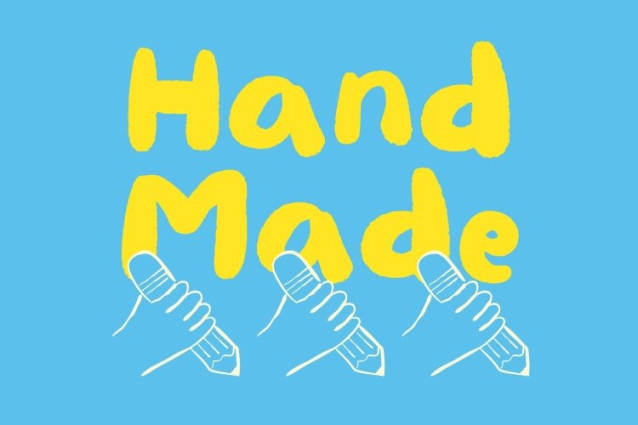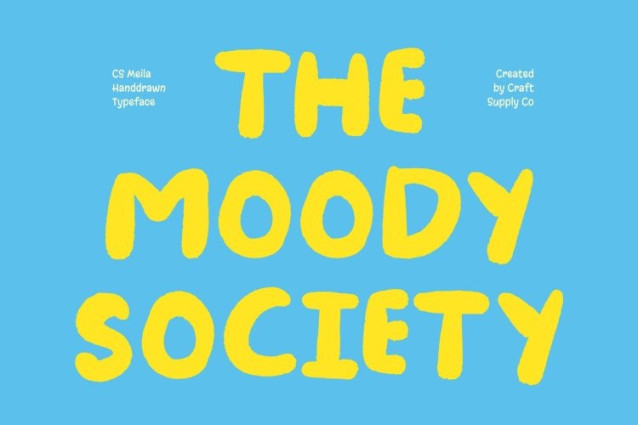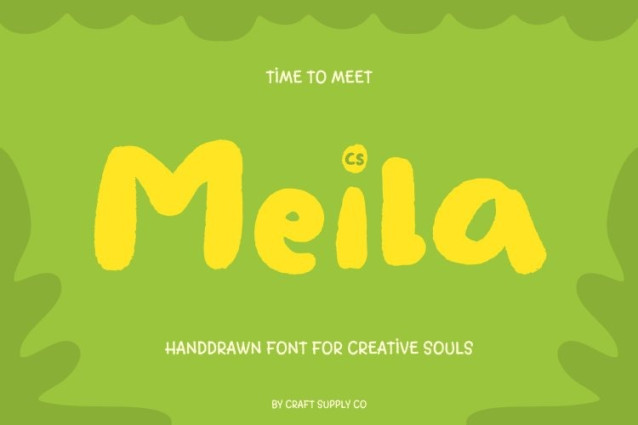
CS Meila Font
CS Meila Font This is a kids’ display font designed to bring joy, fun, and creativity to any project. Its lively letterforms and playful curves create a cheerful visual rhythm that captures attention instantly. Each character is crafted to feel energetic and friendly, making ideal for designs that aim to be engaging, vibrant, and full of youthful charm.
Lively Characters for Dynamic Visual Appeal
The bold and expressive shapes of give it a unique personality that stands out in playful layouts. Its energetic forms add movement and excitement, ensuring every design feels dynamic and fun. This lively character makes it perfect for projects that require creativity and a sense of adventure.
Playful Style for Fun and Approachable Designs
This font’s playful construction combines rounded strokes with whimsical details, creating a font that feels approachable and imaginative. Its friendly appearance enhances readability while adding a touch of joy and spontaneity, making designs feel warm and inviting to children and adults alike.
Perfect for Games, Posters, and Children’s Branding
This font shines in games, posters, children’s branding, educational materials, party invitations, and playful editorial layouts. Whether crafting fun headlines, interactive content, or kid-focused packaging, this font brings cheerful personality, playful energy, and creative charm to every project, ensuring your designs are memorable and full of life.